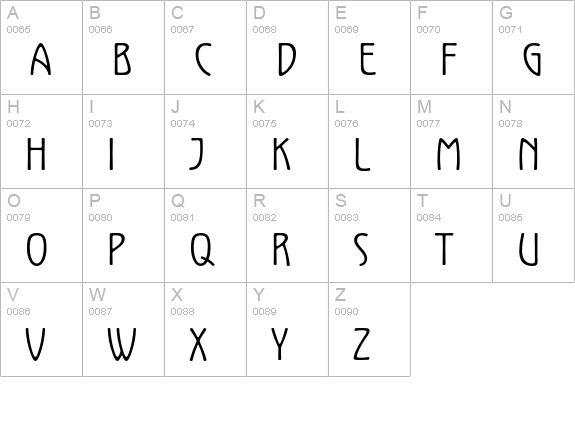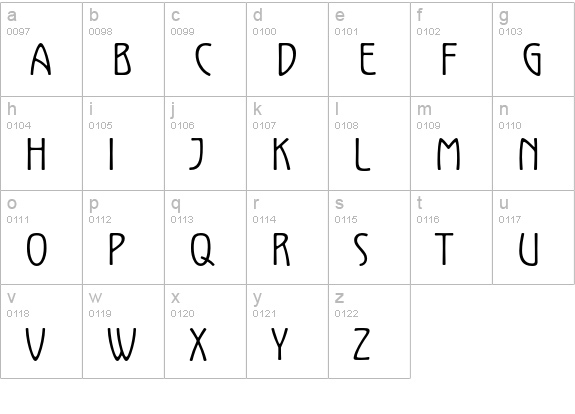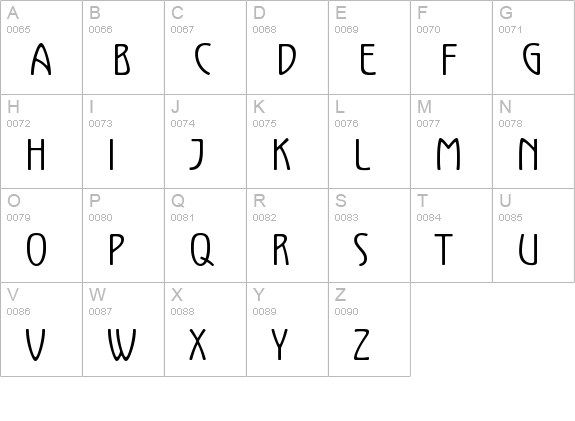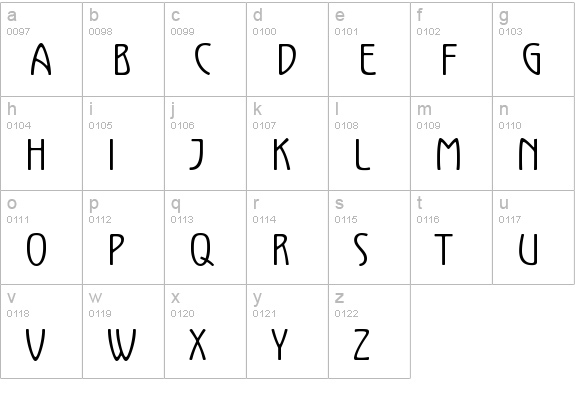
Kolo LP Std Narrow Font Details
Kolo LP Std Narrow is a distinctive, condensed-width variant in the Kolo typeface family \xE2\x80\x94 well suited to design and typography projects.
Kolo LP Std Narrow font is a modern and sleek typeface designed for a wide range of design projects. With its clean lines and elegant style, this font is perfect for creating professional-looking designs. The narrow version of the font adds a touch of sophistication and refinement to any project. The best part is that Kolo LP Std Narrow font is available for free download at FontsMarket.com. Whether you're working on a branding project, website design, or any other creative endeavor, this font is a versatile choice that will elevate your work to the next level. Don't miss out on the opportunity to enhance your designs with this beautiful and stylish typeface. Download Kolo LP Std Narrow font today and start creating stunning visuals that will leave a lasting impression.